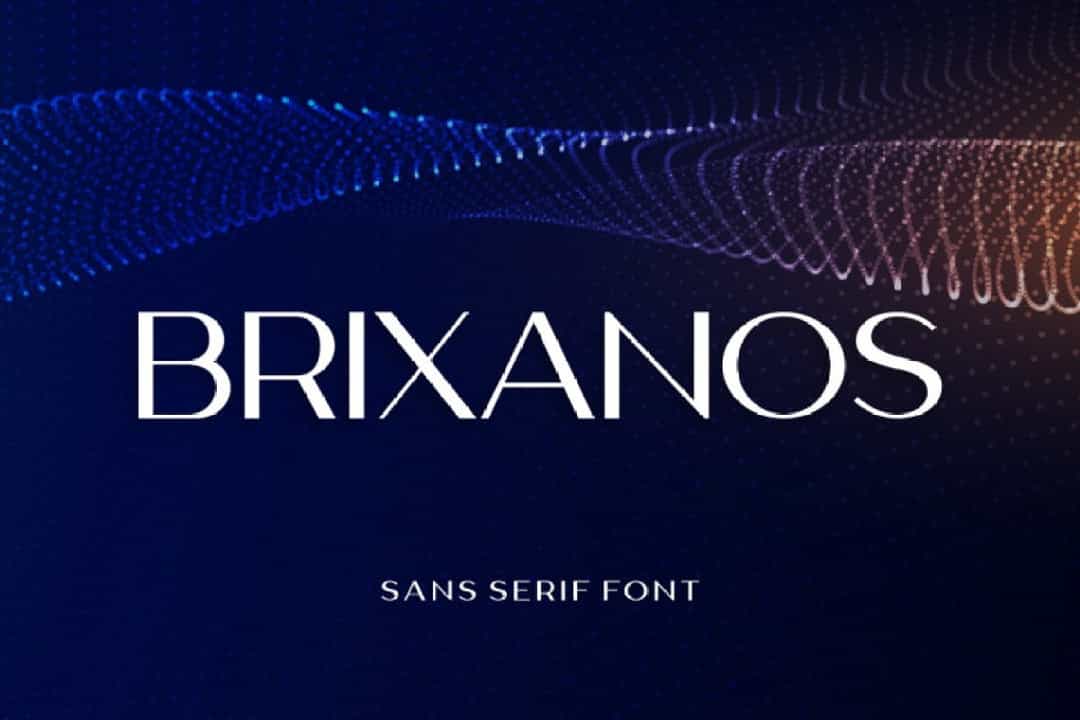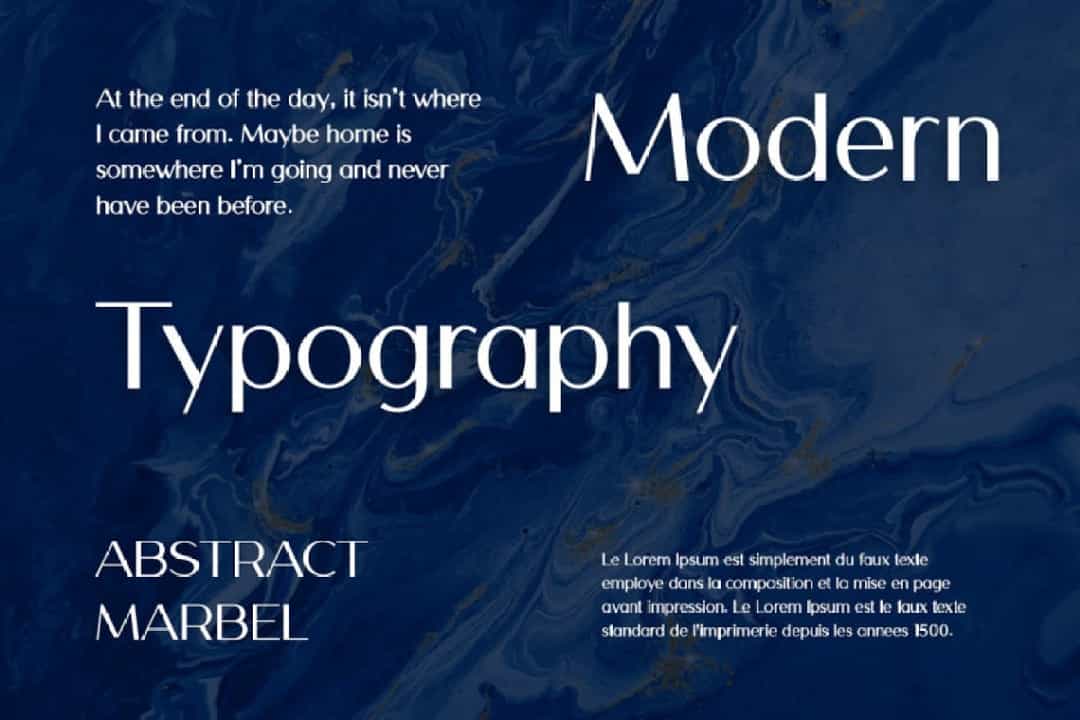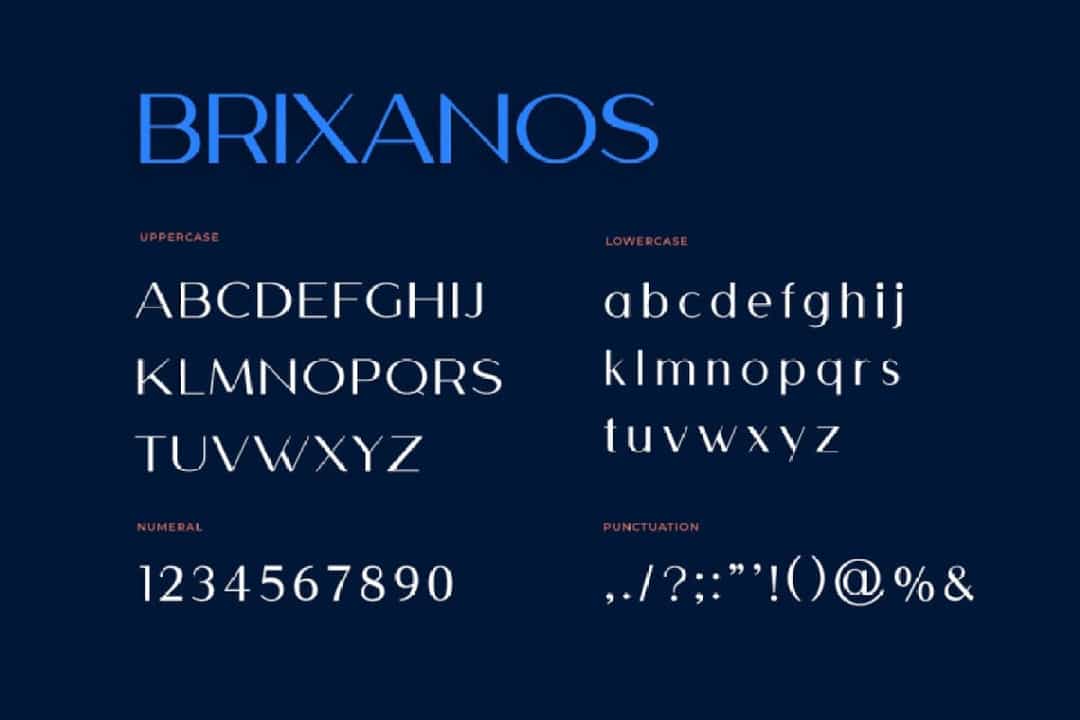
Brixanos is an elegant sans serif typeface, ideal for casual environments. This typeface looks beautiful whether applied against busy backgrounds or as a standalone headline! This bundle includes robust, confident, and powerful fonts which work well as logos for sports teams, club logos on apparel or labels; or as standalone headlines!